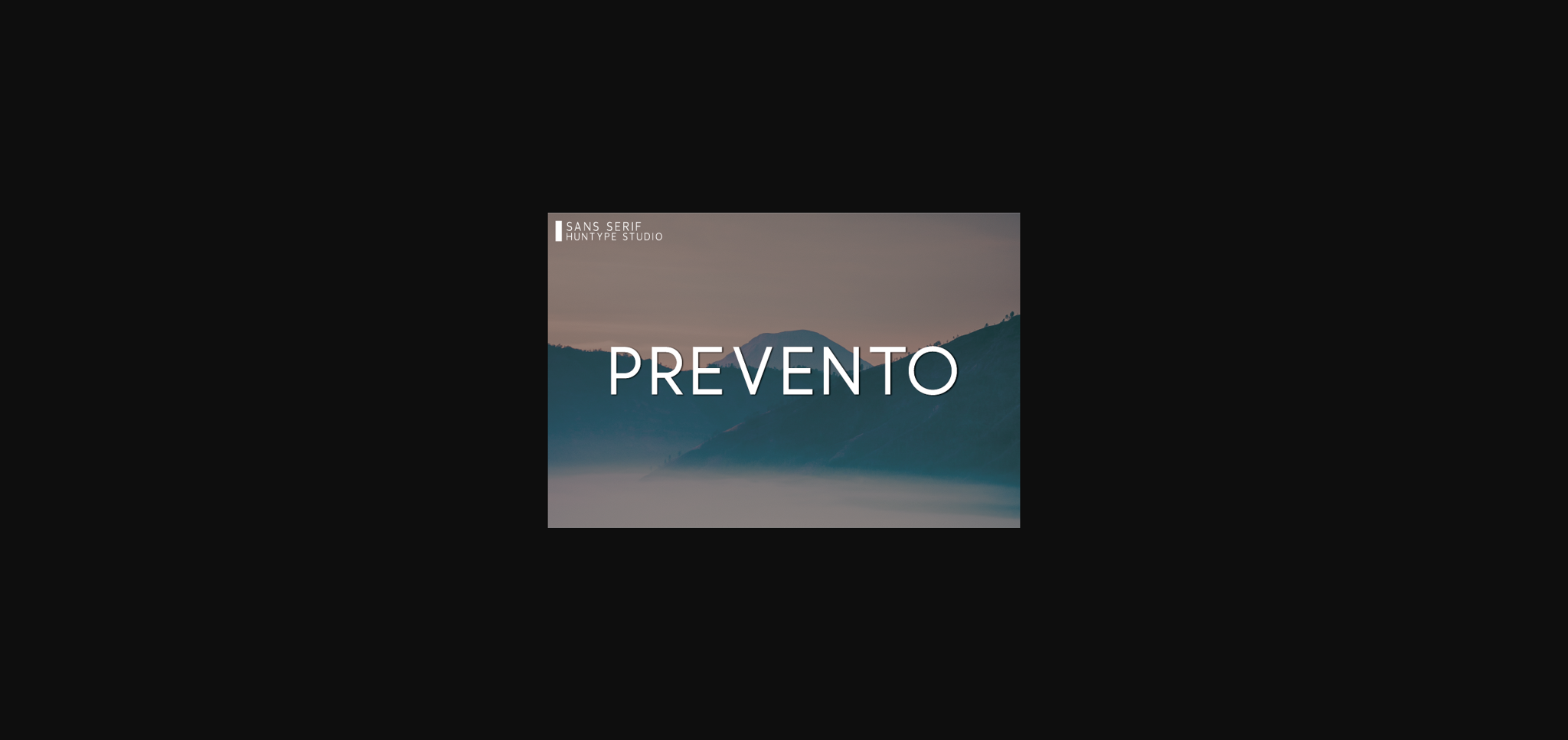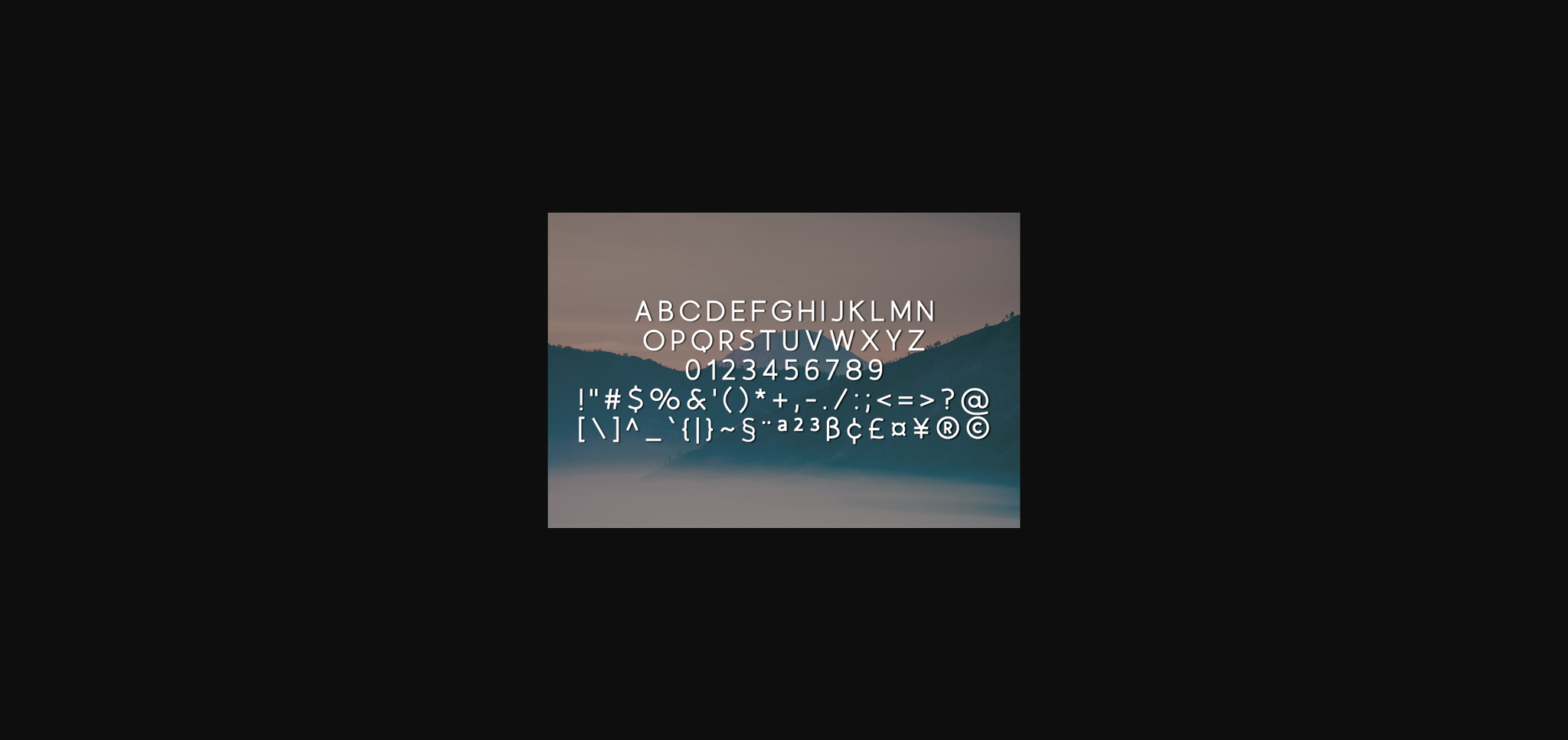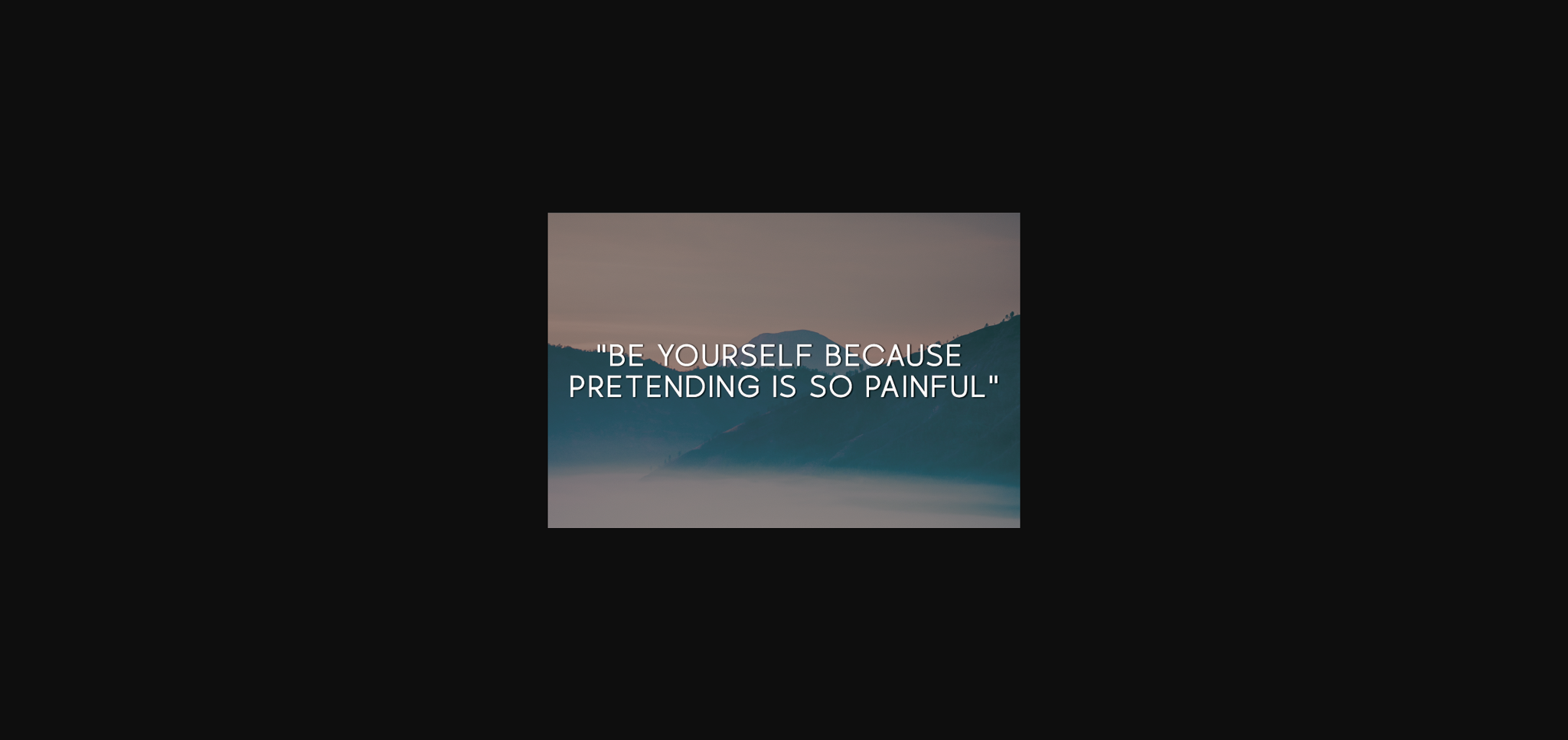
Prevento Font
About Prevento Font
Prevento is a simple and genuine sans serif font. It has a clean, thin and smooth vibe and it will be a hit for any design that you want to add it to.